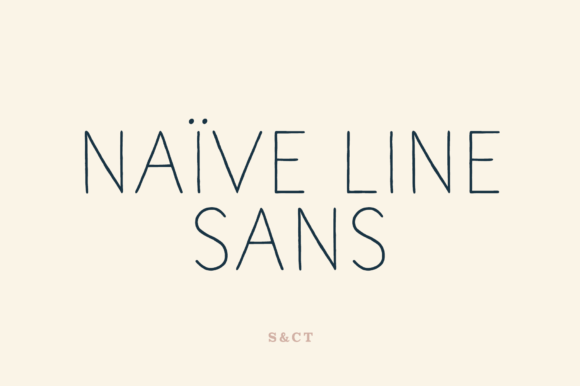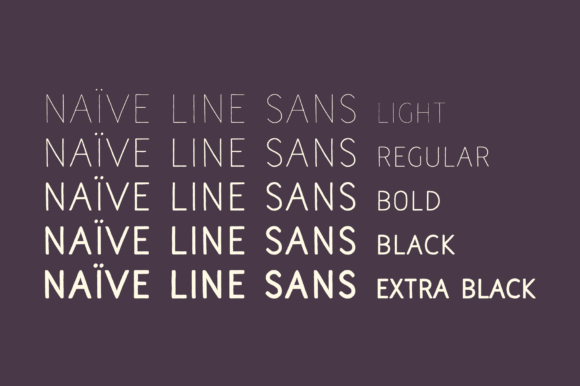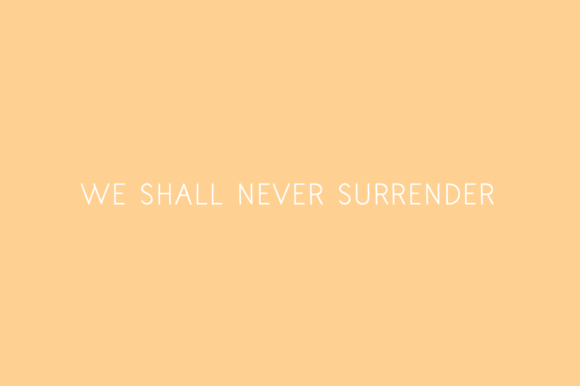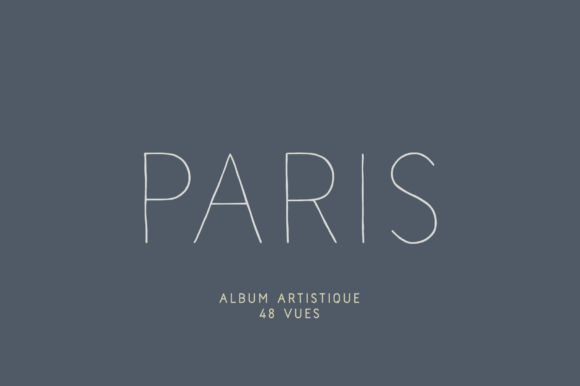
Naive Line Sans Font
About the Naive Line Sans Font
Crafted with precision, the Naive Line Sans Font is ready to bring your ideas to life. Naïve Line Sans is an unusual handwritten sans serif font designed in Paris. Our goal was to draw a font with finely irregular lines that give a human and whimsical feeling.
We designed five weights, finely balanced, to ensure good readability whatever the size.
This font is part of our Naïve superfamily that contains a lot of variations: Line, Inline, Serif, Sans Serif, and a special Art Deco one.
Naïve Line Sans excels in display applications such as headlines, short text blocks on posters, and branding elements where its hand-drawn charm adds personality. Its whimsical nature makes it ideal for projects targeting a younger demographic or those with a playful, approachable brand identity. However, its irregular lines make it less suitable for extended body text or UI elements requiring high readability.
For optimal visual harmony, pair Naïve Line Sans with a clean, geometric sans-serif like Futura for a balanced contrast, or a classic serif like Garamond for a touch of sophistication. A playful script font could also enhance its whimsical feel, depending on the project’s overall aesthetic.
The font’s core personality is undeniably friendly and approachable, yet retains a level of sophistication thanks to its Parisian origins and balanced weights. It’s a versatile choice for brands aiming for a modern yet human touch.
Naive Line Sans Font Usage Examples
Naive Line Sans Font Example